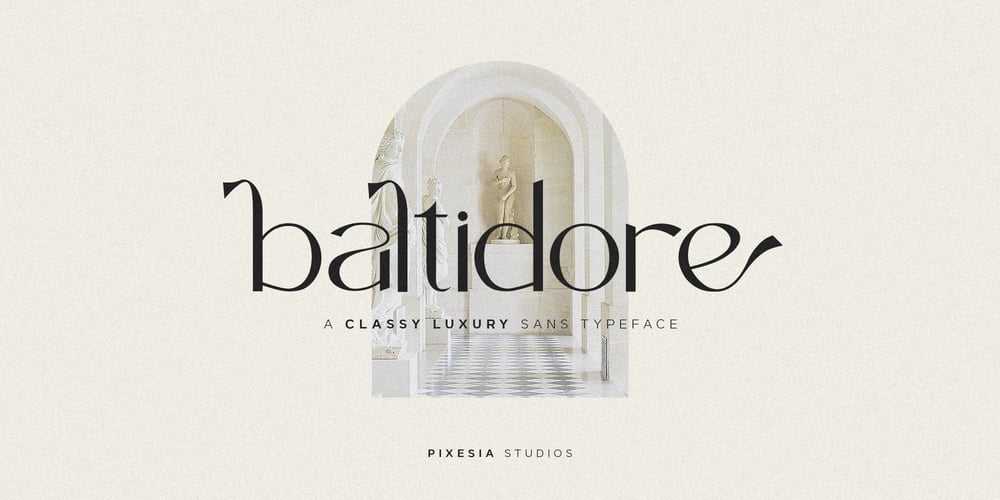
Baltidore Font Family was designed by Abul Almaududi and published by Pixesia Studio. Baltidore contains 1 styles and family package options. Introducing Baltidore – A Casual Luxury Sans Serif FontBaltidore is an elegant and luxurious sans serif font. It is PUA encoded which means you can access all of the glyphs and swashes with ease! Fall in love with its incredibly versatile style and use it to create spectacular designs!FEATURES- Stylistic Alternates- Ligatures- PUA Encoded- Uppercase and Lowercase letters- Numbering and Punctuations- Multilingual Support- Works on PC or Mac- Simple Installation- Support Adobe Illustrator, Adobe Photoshop, Adobe InDesign, also works on Microsoft WordHope you Like it.Thanks.